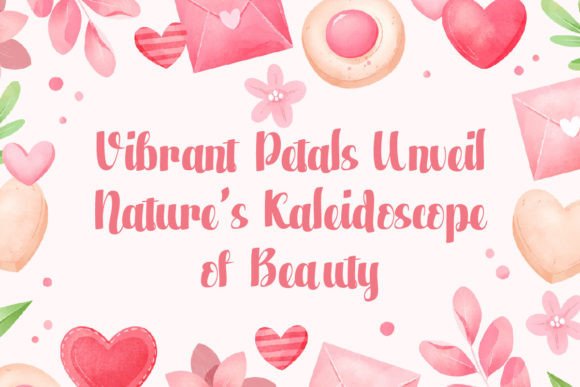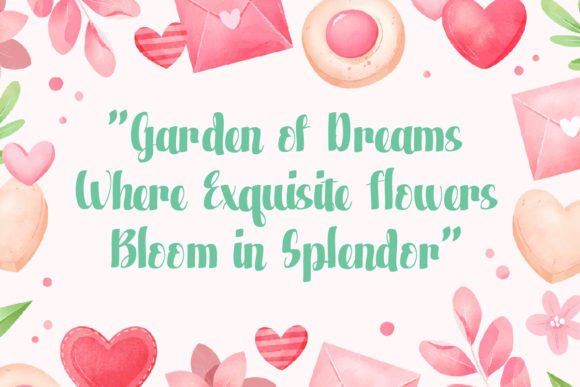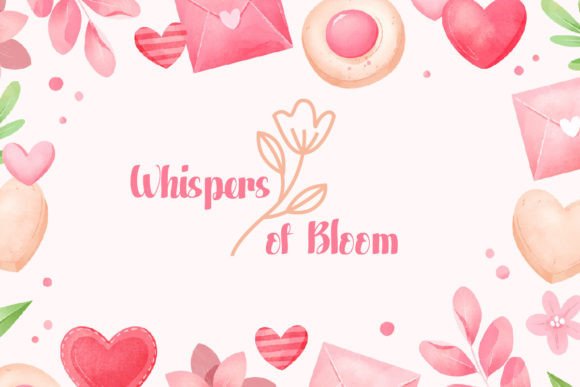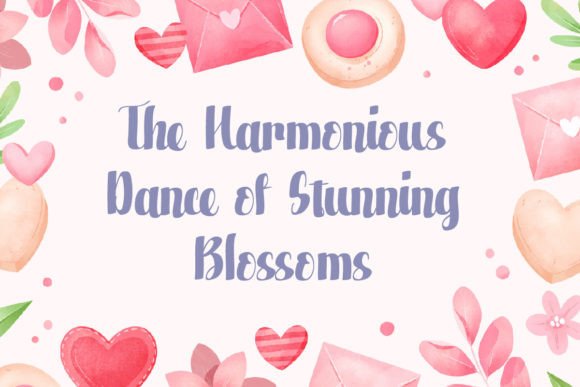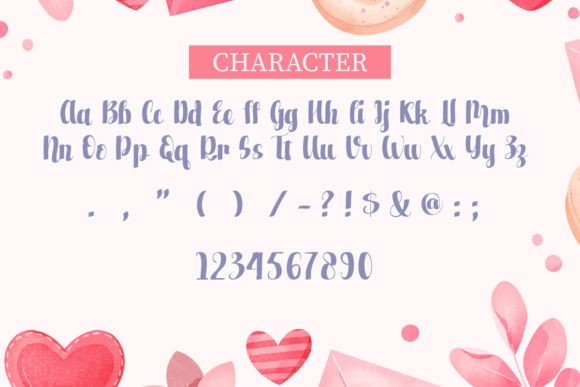
Helleny Font: Elevate Your Designs with Elegance and Sophistication
In the world of typography, fonts play a crucial role in conveying the tone and personality of a design. For those seeking a stylish and modern script font that exudes elegance and sophistication, look no further than Helleny. This beautiful font is designed to add a touch of chic charm to any project, making it perfect for designers and crafters looking to elevate their creations.
The Beauty of Helleny
Helleny is a stunning script font that boasts flowing curves and a contemporary design. Its unique blend of traditional and modern elements creates a fresh and sophisticated vibe that is sure to captivate audiences. Whether you’re working on invitations, branding, or any creative endeavor, Helleny is the perfect choice for those seeking a font that effortlessly blends timeless elegance with a modern twist.
Key Features of Helleny
- Stylish and Modern Design: Helleny’s script font is designed to make a statement. Its sleek lines and flowing curves create a sophisticated look that is perfect for high-end designs.
- Elegant and Refined: With its classic feel and modern twist, Helleny brings a touch of elegance to any project. Its refined design makes it perfect for formal events, branding, and luxury designs.
- Versatile: Helleny is a versatile font that can be used for a wide range of projects, from invitations and wedding designs to branding and advertising.
- Easy to Read: Despite its elegant design, Helleny is easy to read, making it perfect for body text and headlines.
Uses for Helleny
Helleny’s versatility makes it suitable for a wide range of projects. Here are some ideas to get you started:
- Invitations: Create stunning invitations for weddings, baby showers, and other special occasions with Helleny’s elegant script font.
- Branding: Use Helleny to create a sophisticated brand identity that exudes luxury and refinement.
- Advertising: Add a touch of elegance to your advertising campaigns with Helleny’s modern and stylish design.
- Packaging: Use Helleny to create eye-catching packaging designs that stand out on store shelves.
Tips for Using Helleny
To get the most out of Helleny, here are some tips to keep in mind:
- Pair with a Simple Font: Pair Helleny with a simple font to create a striking contrast that adds visual interest to your design.
- Use for Headlines and Titles: Use Helleny for headlines and titles to add a touch of elegance and sophistication to your design.
- Experiment with Colors: Experiment with different colors to find the perfect combination that complements Helleny’s elegant design.
| Font Name | Helleny Font |
| Author | IHD.STD |
In conclusion, Helleny is a stylish and modern script font that adds a touch of elegance and sophistication to any design. Its flowing curves and contemporary design make it perfect for a wide range of projects, from invitations and branding to advertising and packaging. With its versatility, elegance, and ease of use, Helleny is a must-have font for designers and crafters looking to elevate their creations.